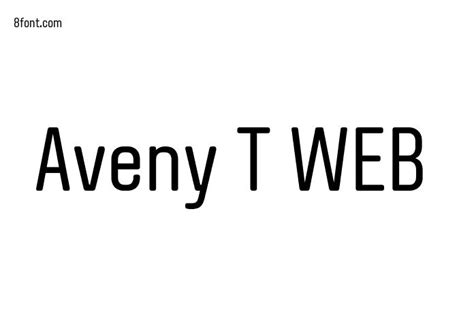
What is Aveny Font?
Before we get into the nitty-gritty of downloading, let’s talk about what makes Aveny so special. Aveny is a sans-serif typeface known for its clean lines and contemporary aesthetic . It’s highly legible, making it a great option for both headlines and body text. Designers often choose Aveny because it strikes a balance between being modern and approachable, avoiding the cold, sterile feel that some other sans-serif fonts can have . Its versatility lends itself well to a wide range of applications, from corporate branding and editorial design to web interfaces and mobile apps. Aveny includes various weights and styles, offering plenty of flexibility to create visual hierarchy and emphasize different elements within your design. For example, you might use Aveny Bold for headlines to grab attention and Aveny Regular for the body text to ensure readability. Moreover, Aveny often comes with a comprehensive character set, including ligatures, alternates, and support for multiple languages, further enhancing its usability in diverse design contexts. The font’s careful design ensures that it maintains clarity and visual appeal across different sizes and resolutions, making it suitable for both print and digital media. Whether you are designing a logo, a website, or a printed brochure, Aveny’s adaptability makes it a valuable asset in any designer’s toolkit, contributing to a polished and professional final product . If you’re aiming for a modern and sophisticated look, Aveny is definitely a font to consider.